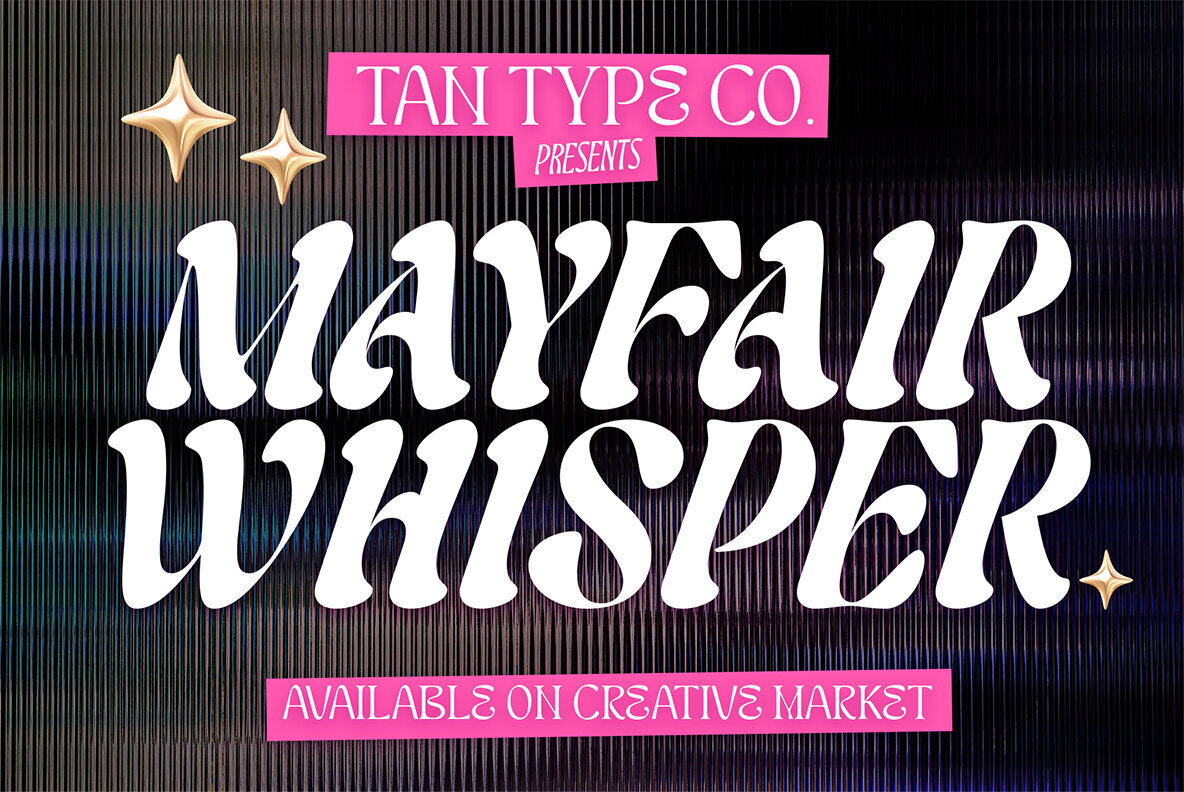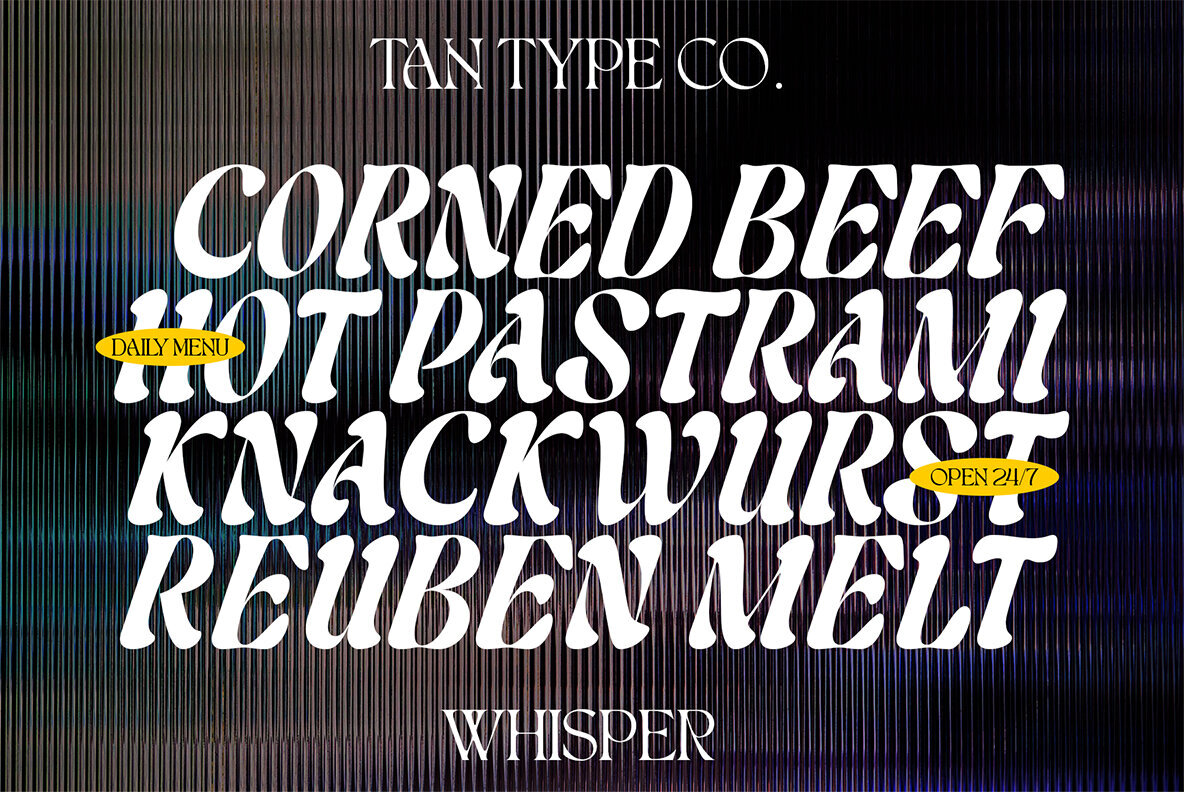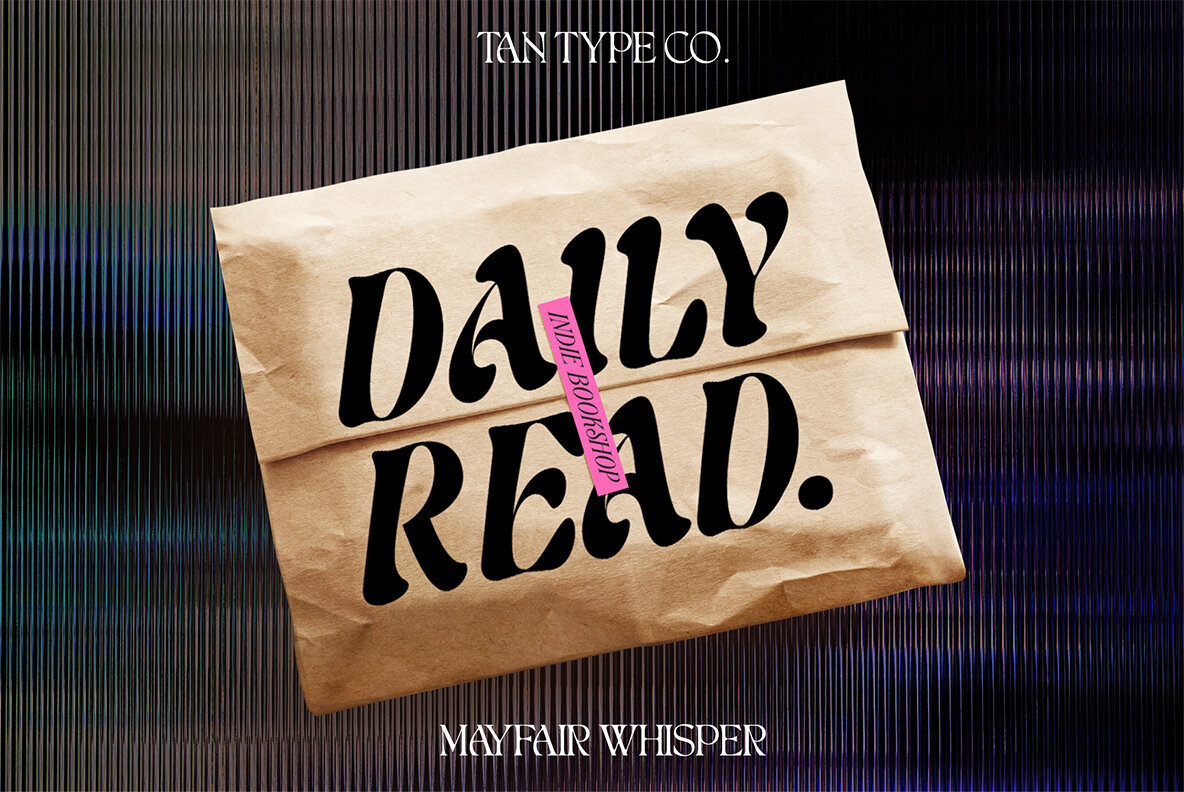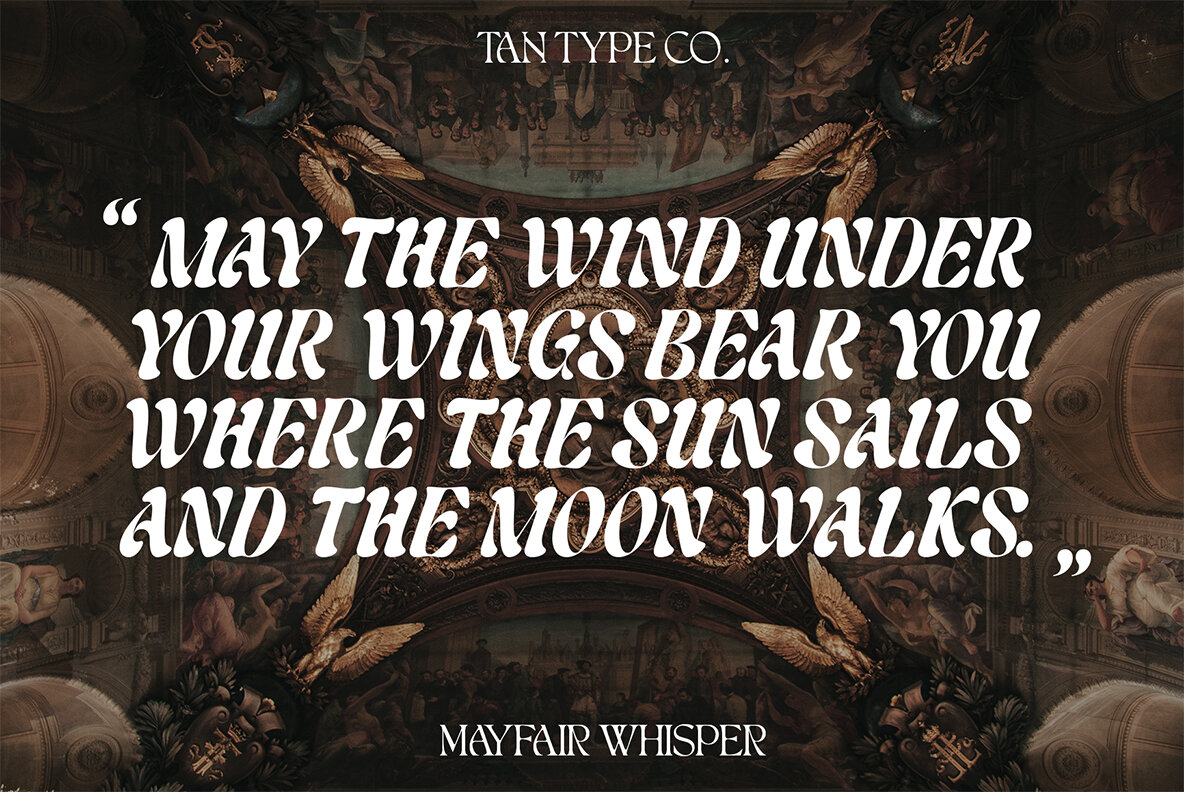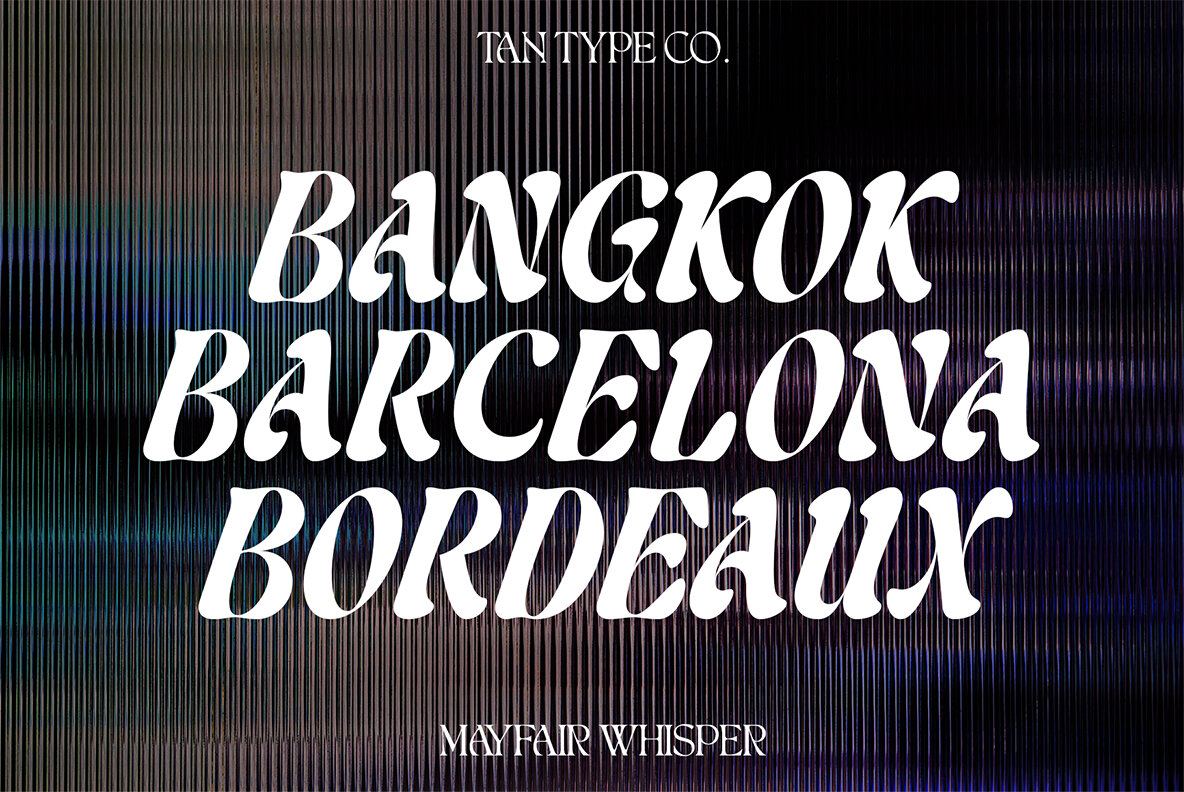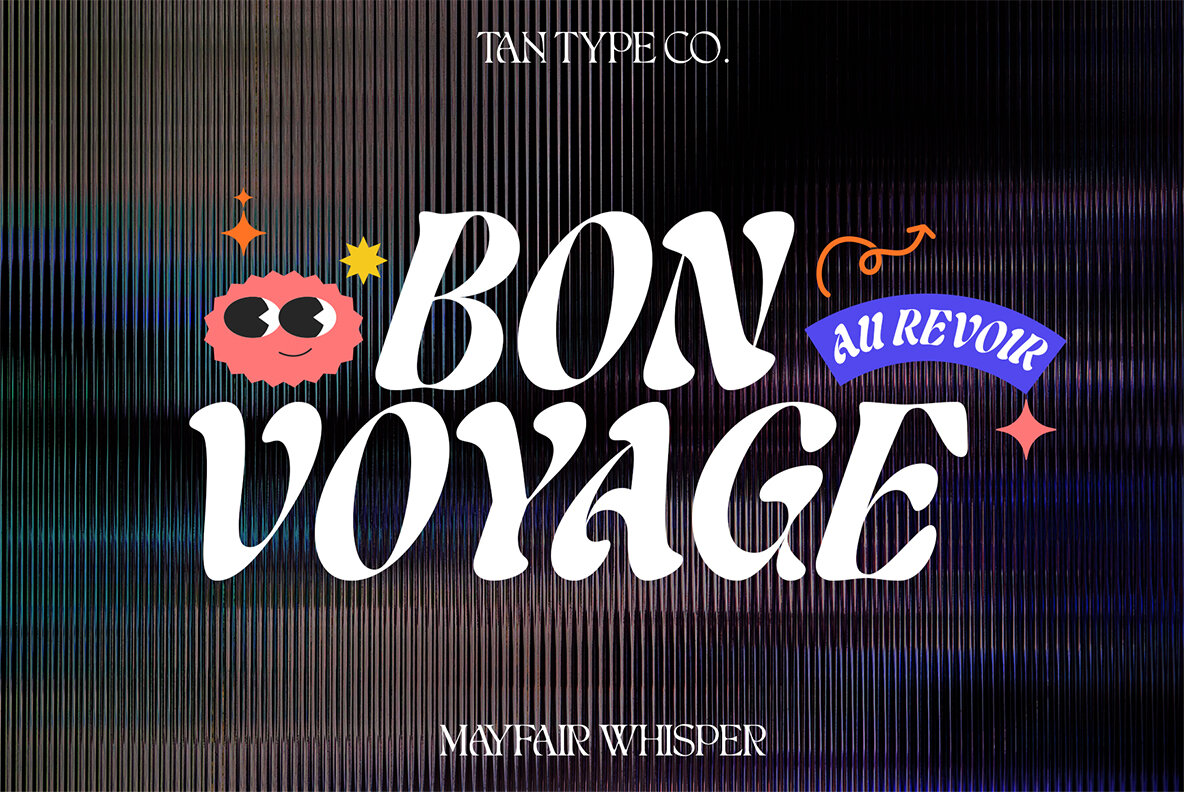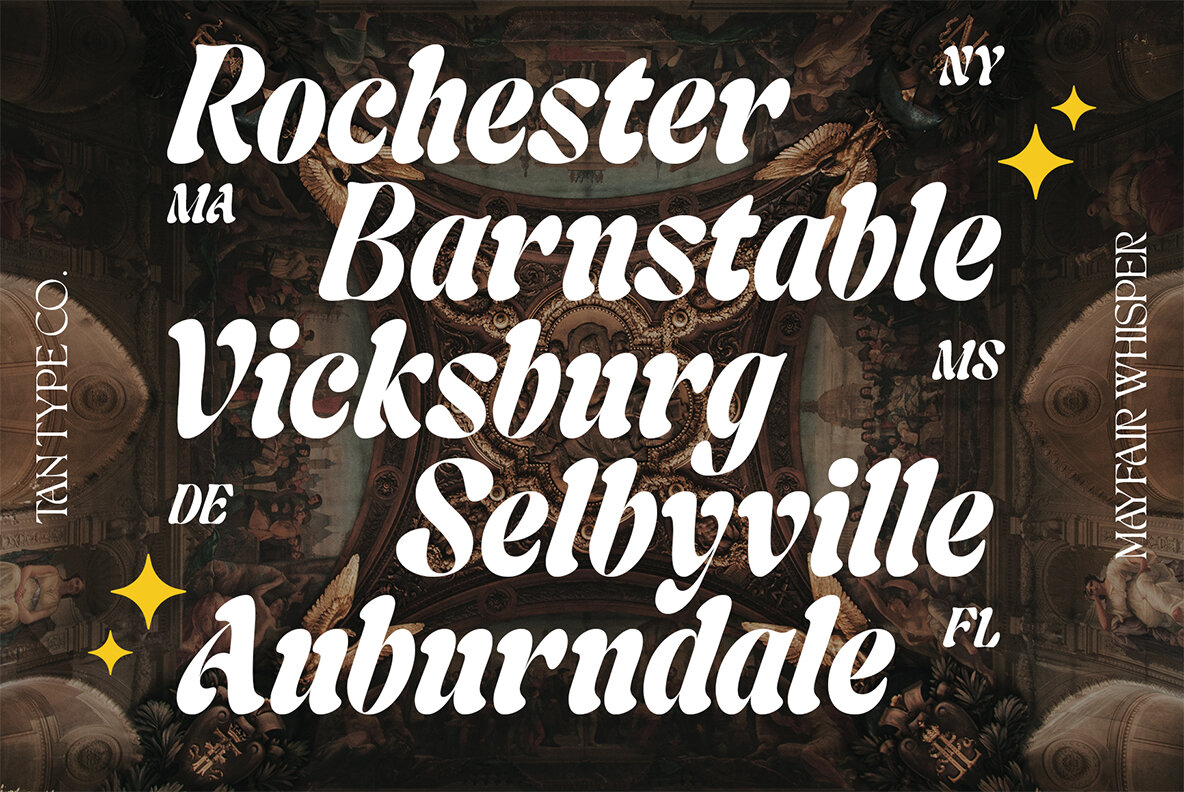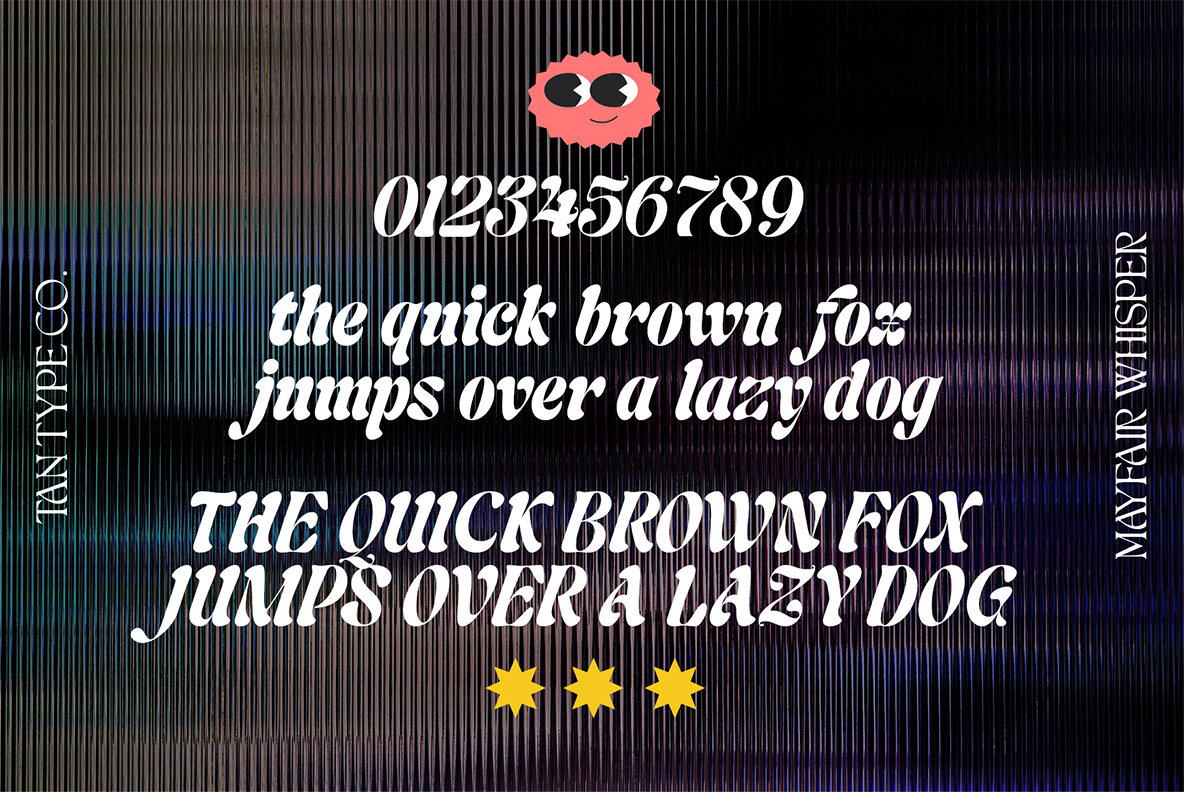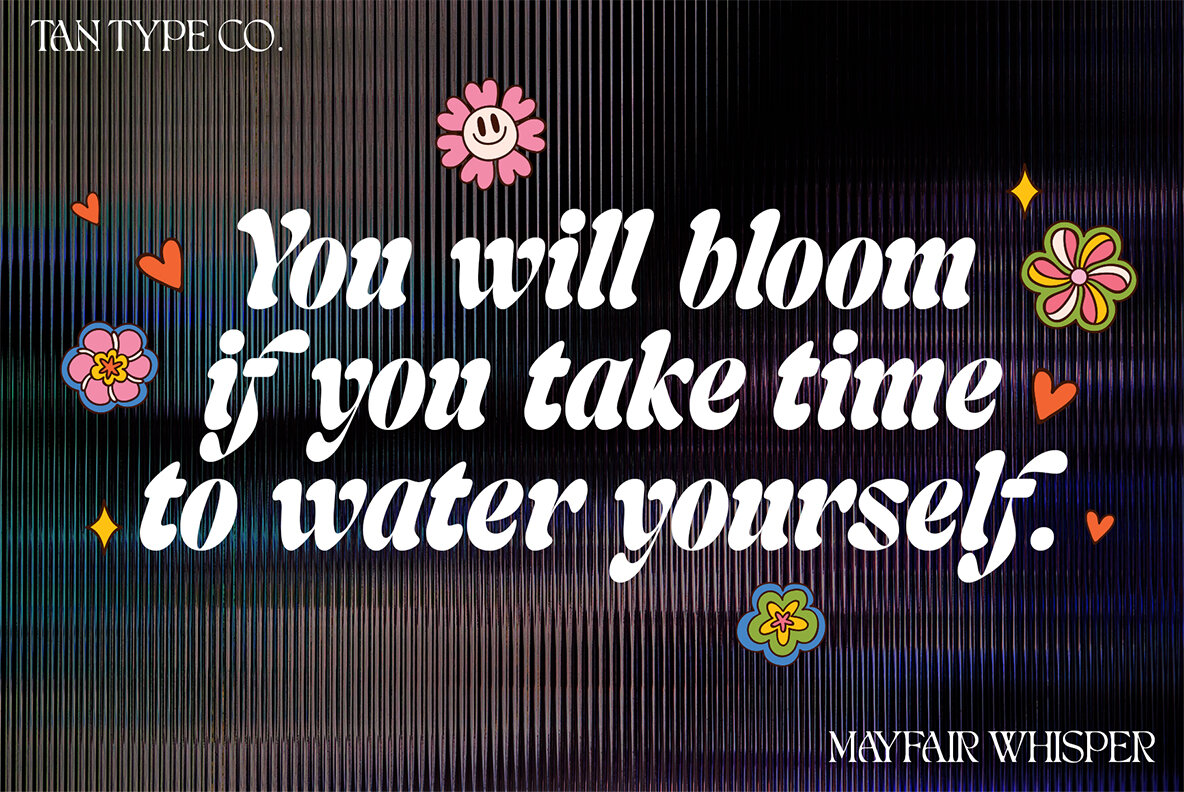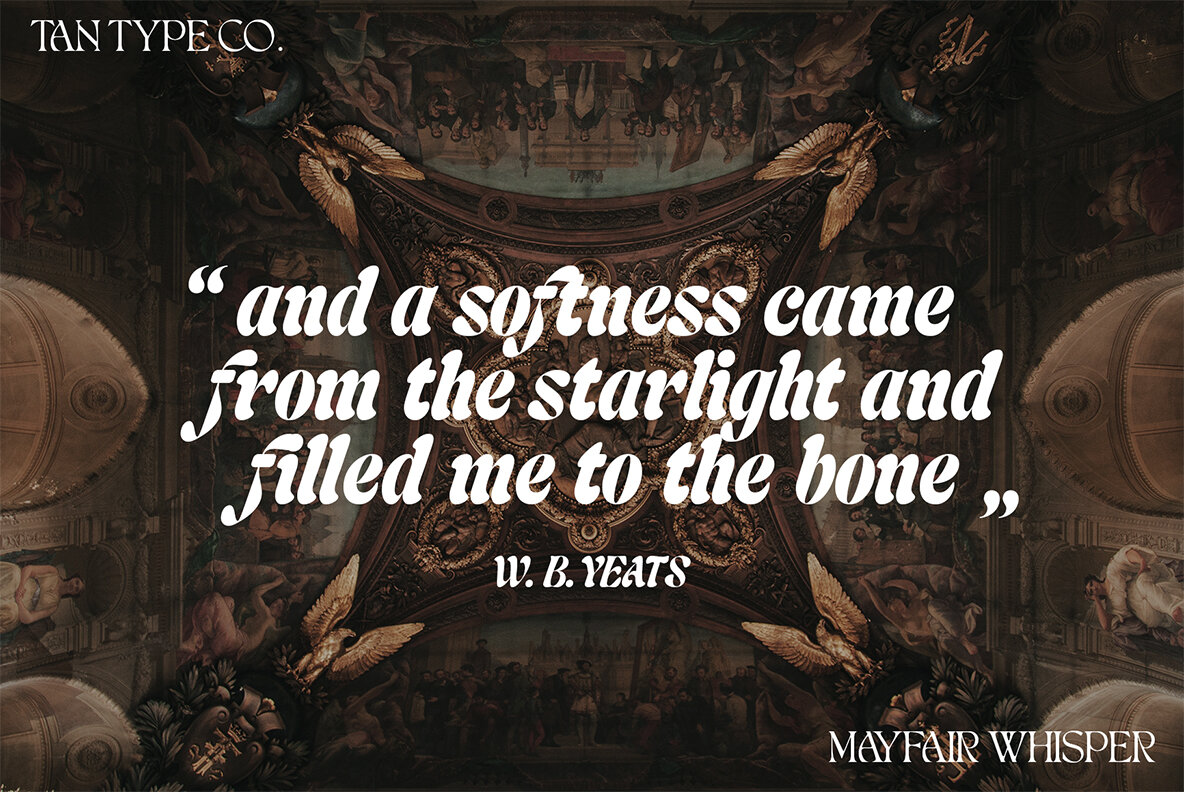
TAN MAYFAIR Font
TAN MAYFAIR WHISPER Regular
Embrace the charm of a bygone era with TAN's Mayfair Whisper, a typeface that masterfully blends boldness and elegant playfulness. Its quirky curves and offbeat letterforms pay homage to vintage design while introducing a modern twist. This font captivates with its bold strokes, creating a visually striking presence that commands attention. Ideal for projects where personality takes center stage, Mayfair Whisper excels in crafting eye-catching logos and stylish headlines. Its unique blend of retro charm and contemporary flair injects a sense of whimsical elegance into any design endeavor.Mayfair Whisper: A Retro-Inspired Typeface with Flair
TanType Co. is a distinguished font designer specializing in classical and decorative typefaces that exude elegance and sophistication. Renowned for their meticulous craftsmanship, each type design by TanType Co. is packed with over 300 glyphs and features advanced OpenType functionalities, ensuring versatilit...